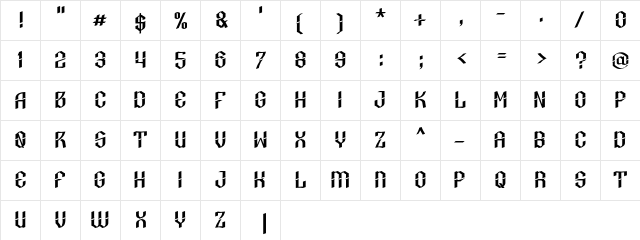
Jalompo-Regular Regular
| Designer | Patria Ari Wijonarko |
Design Context for Jalompo-Regular Typeface
Jalompo-Regular is a composed and adaptable typeface that performs quietly and consistently across a wide range of design contexts.